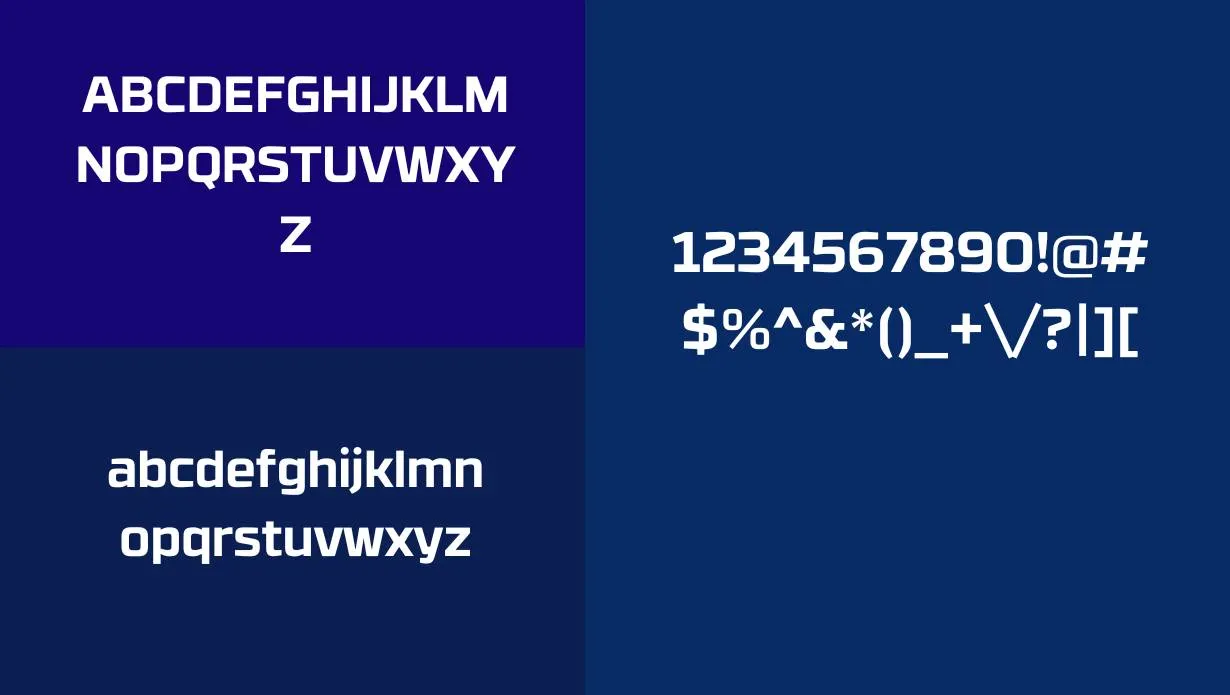
The RBNo3 font is like a modern city skyline for your words. With its clean and sleek design, it’s ideal for crafting minimalist business cards, designing contemporary product labels, or adding a touch of sophistication to your branding.
This font has a medium weight and standard width, giving your words a crisp and professional appearance. Picture using the RBNo3 font for a tech startup’s logo, making your text convey a sense of modernity and innovation.